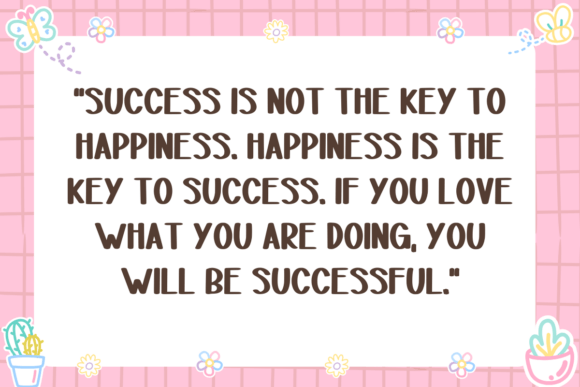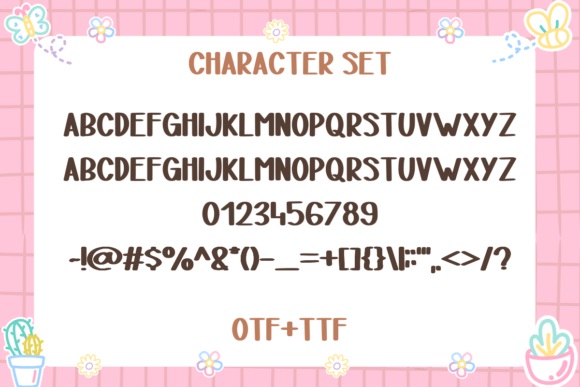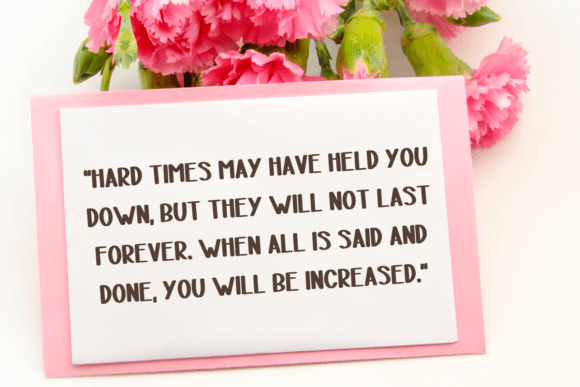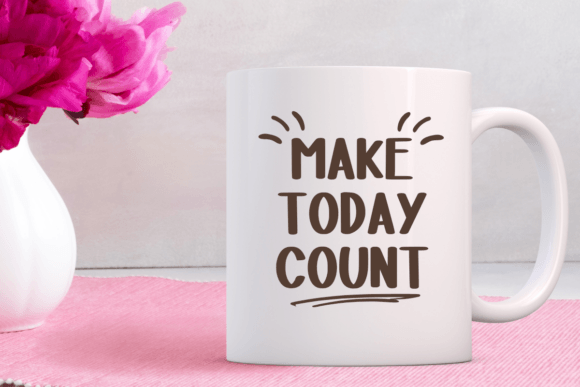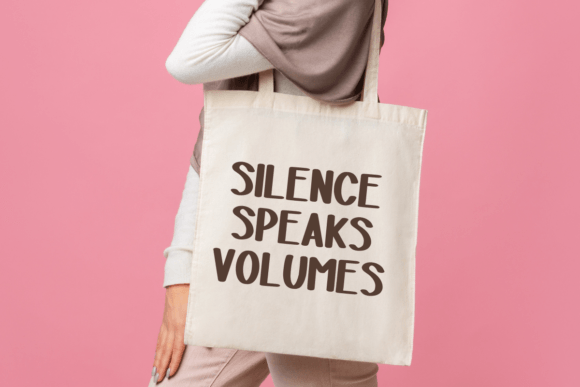
Introduction to Minimalist Gradient Font
Minimalist Gradient Font is a playful handwritten typeface with a bold yet clean aesthetic.
Its fun and approachable style is perfect for branding, packaging, social media, kids’ projects, and creative designs Add a touch of charm and simplicity to your work with this versatile and modern font.
Key Features of Minimalist Gradient Font